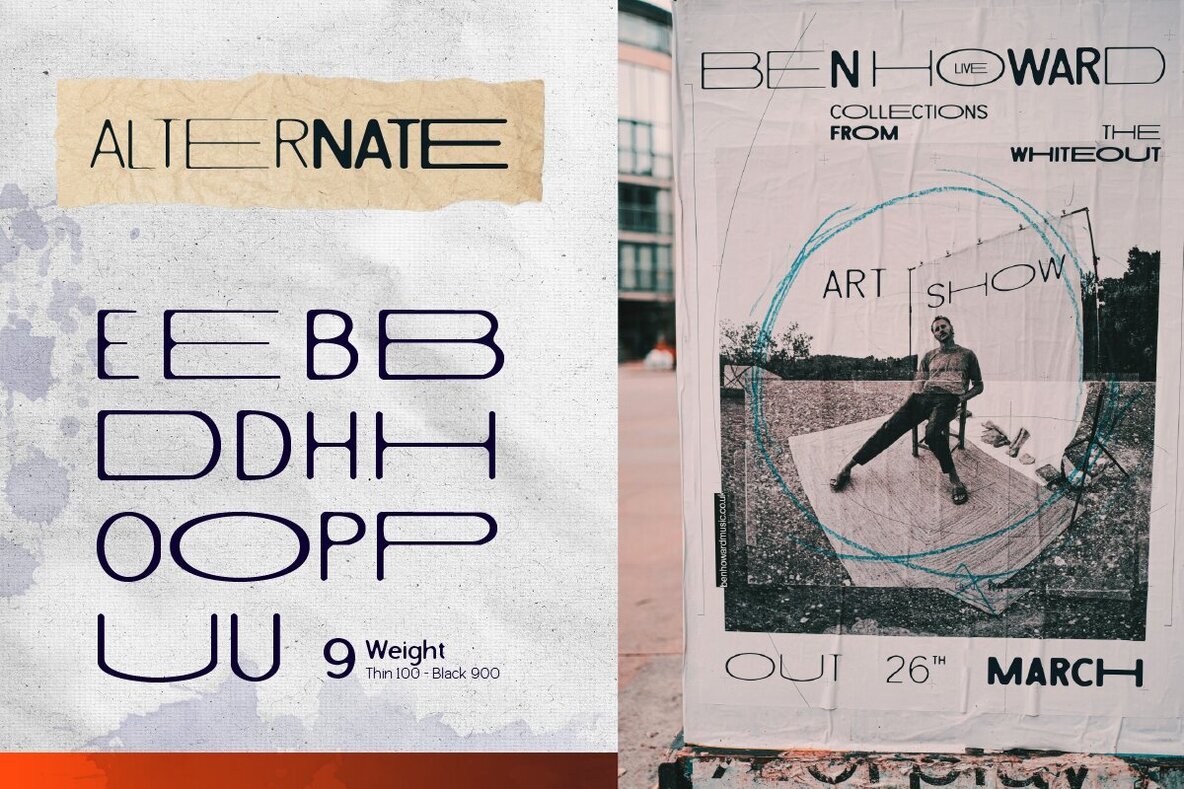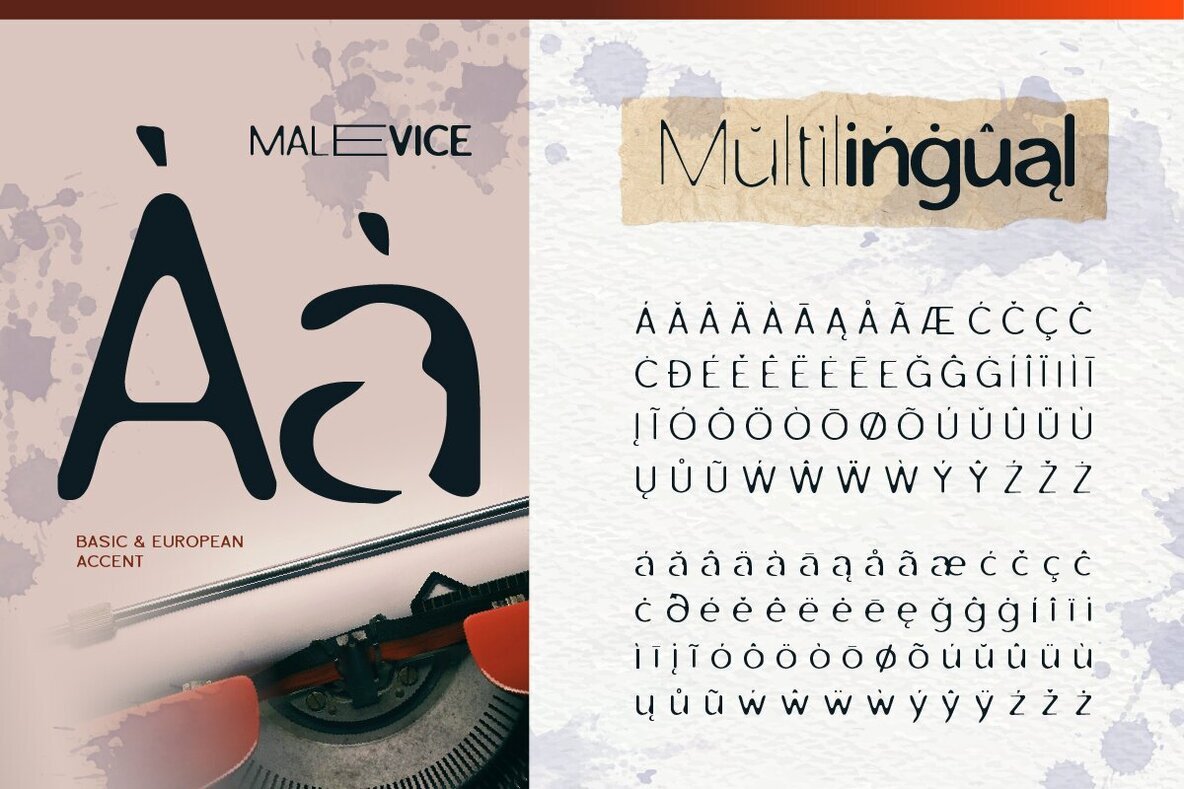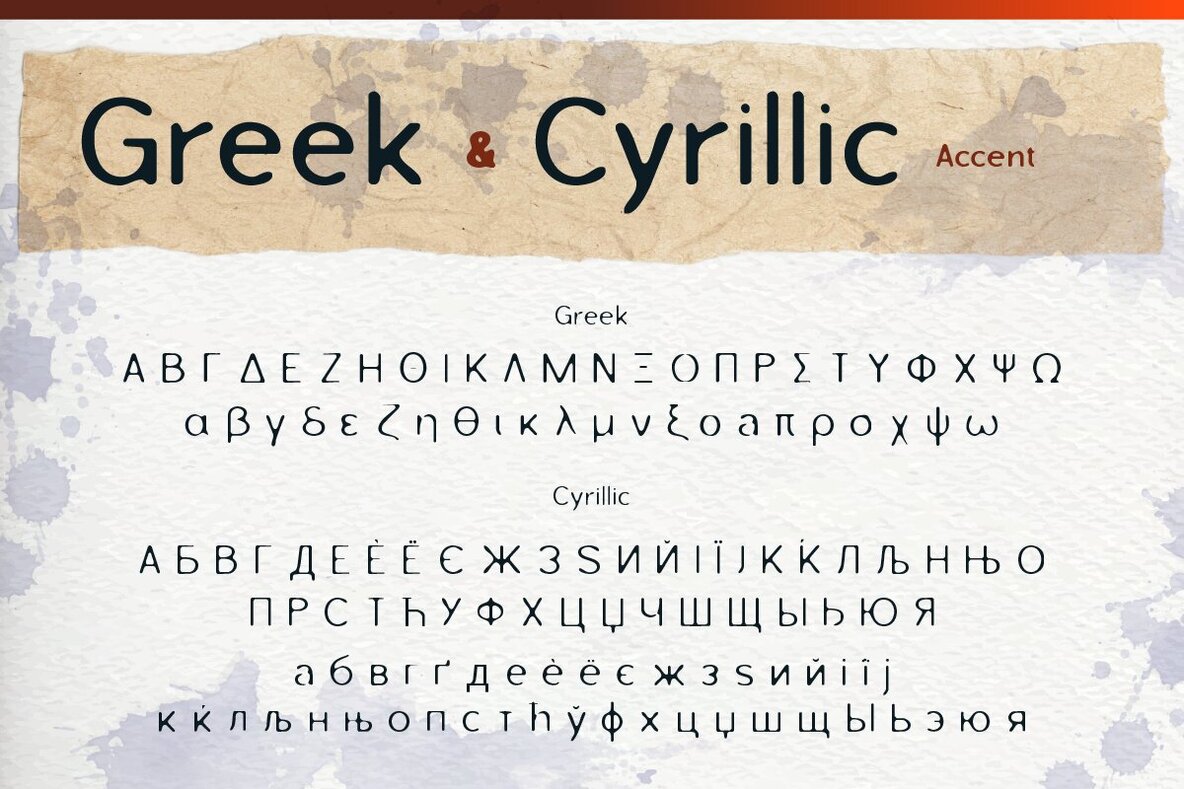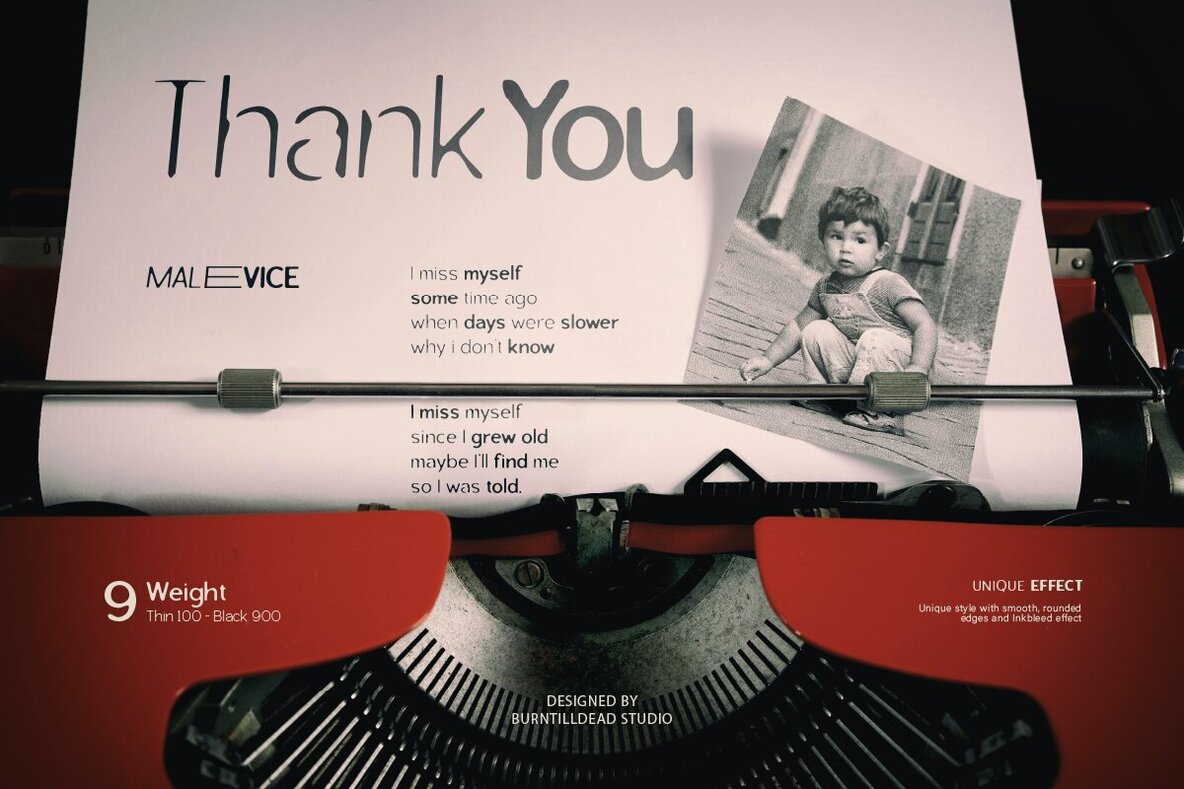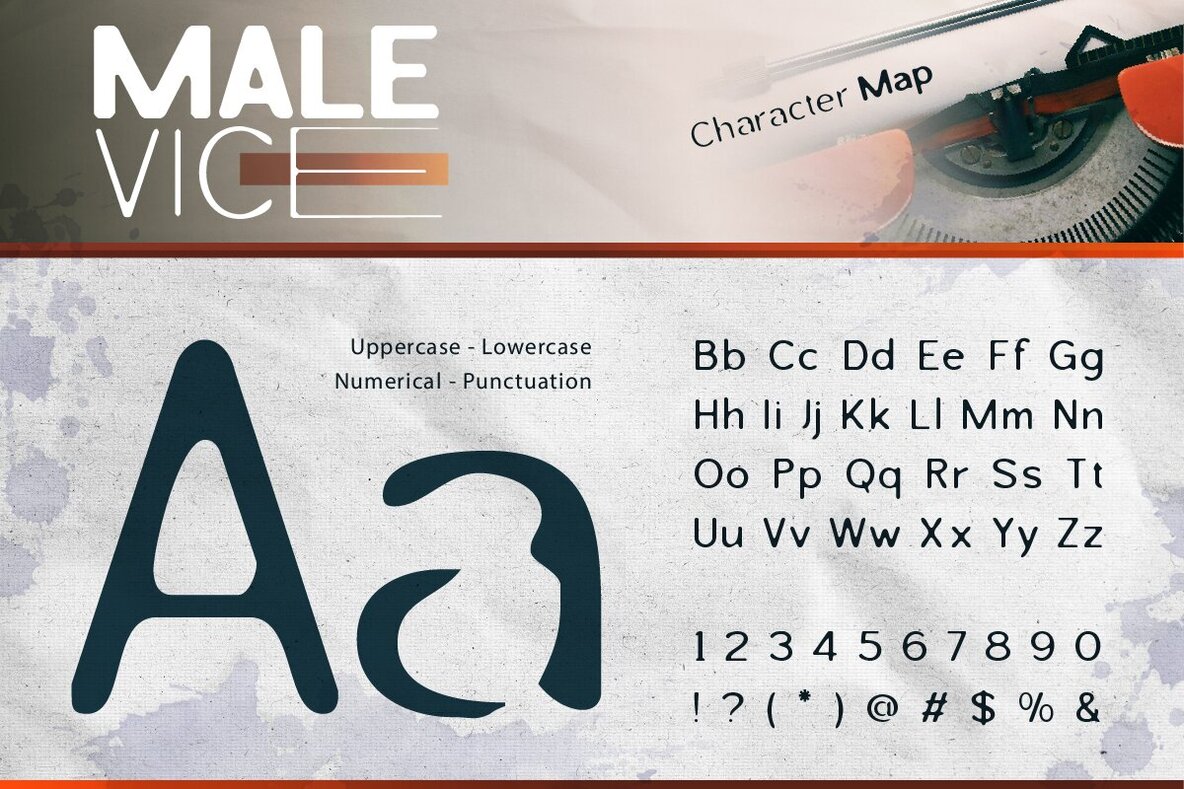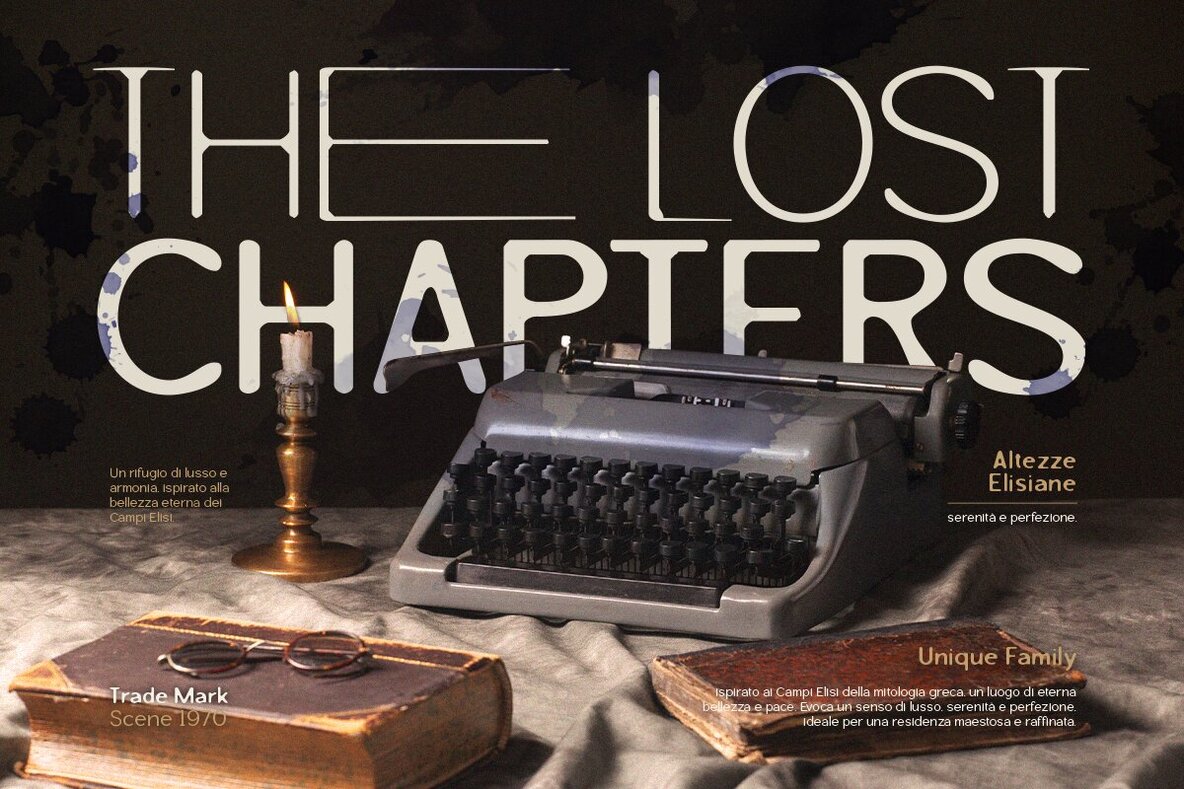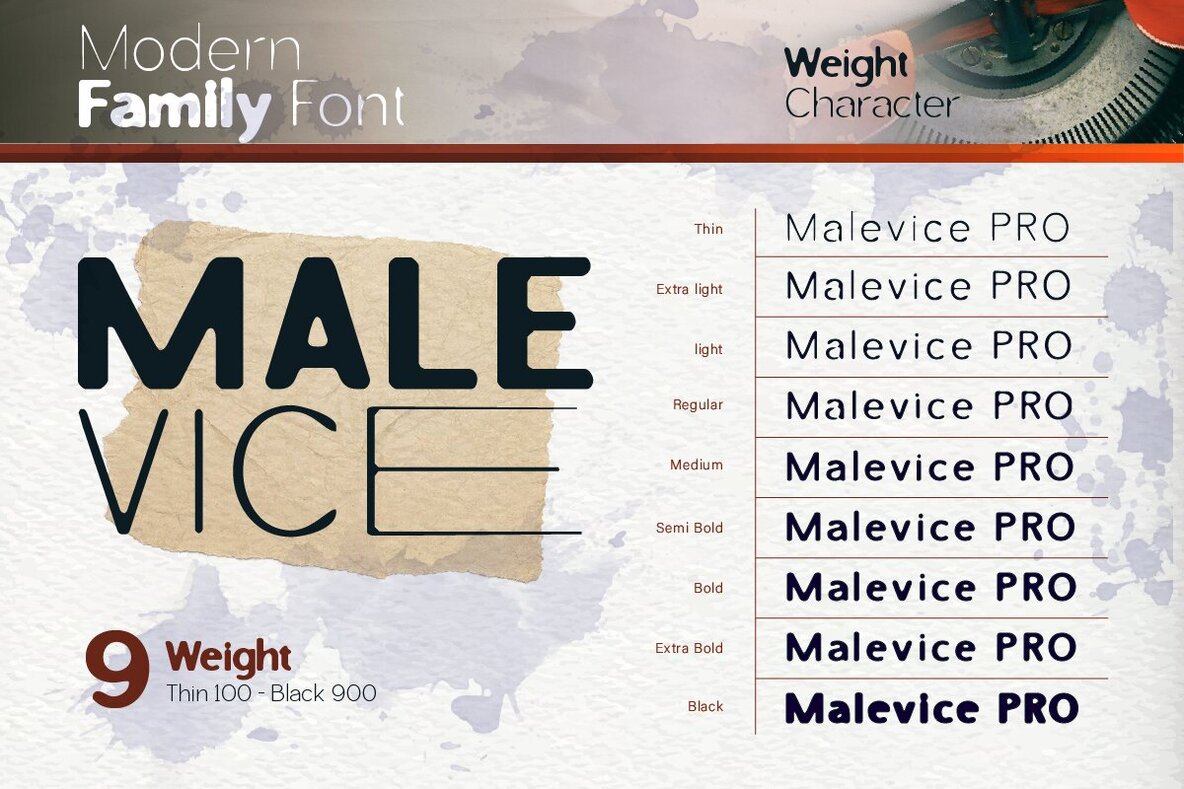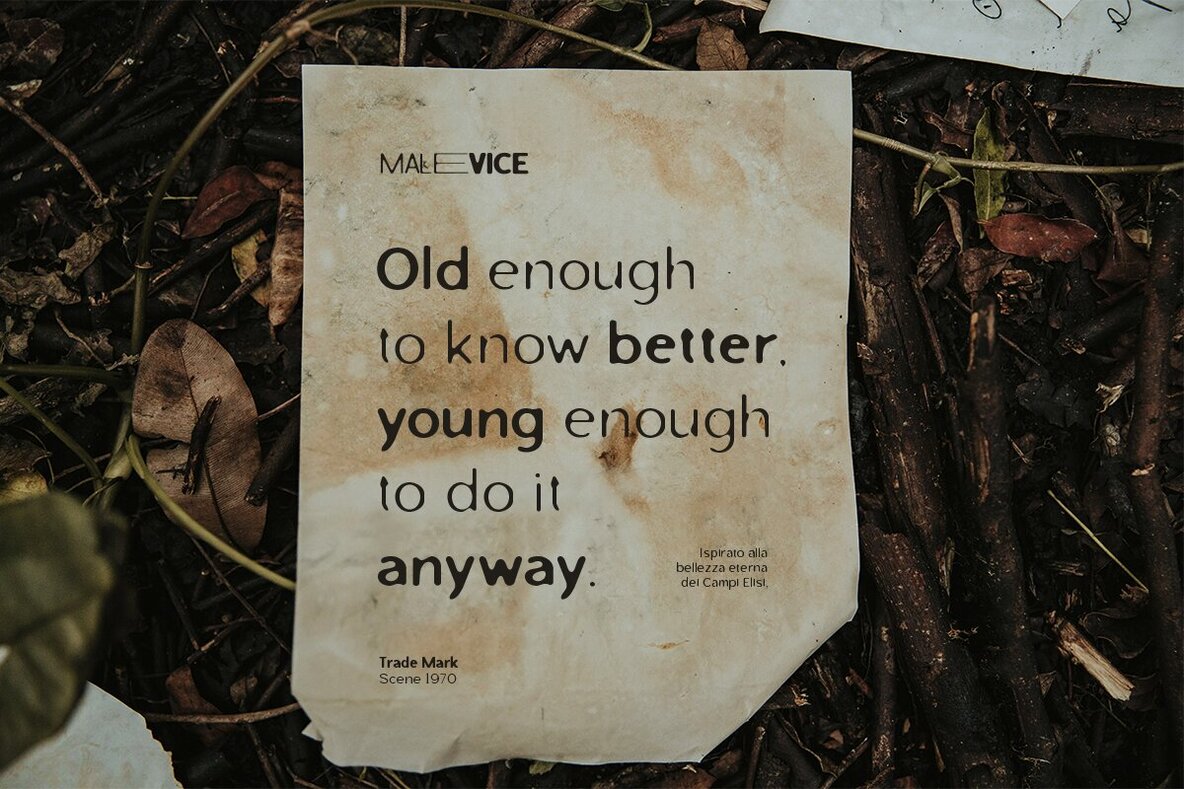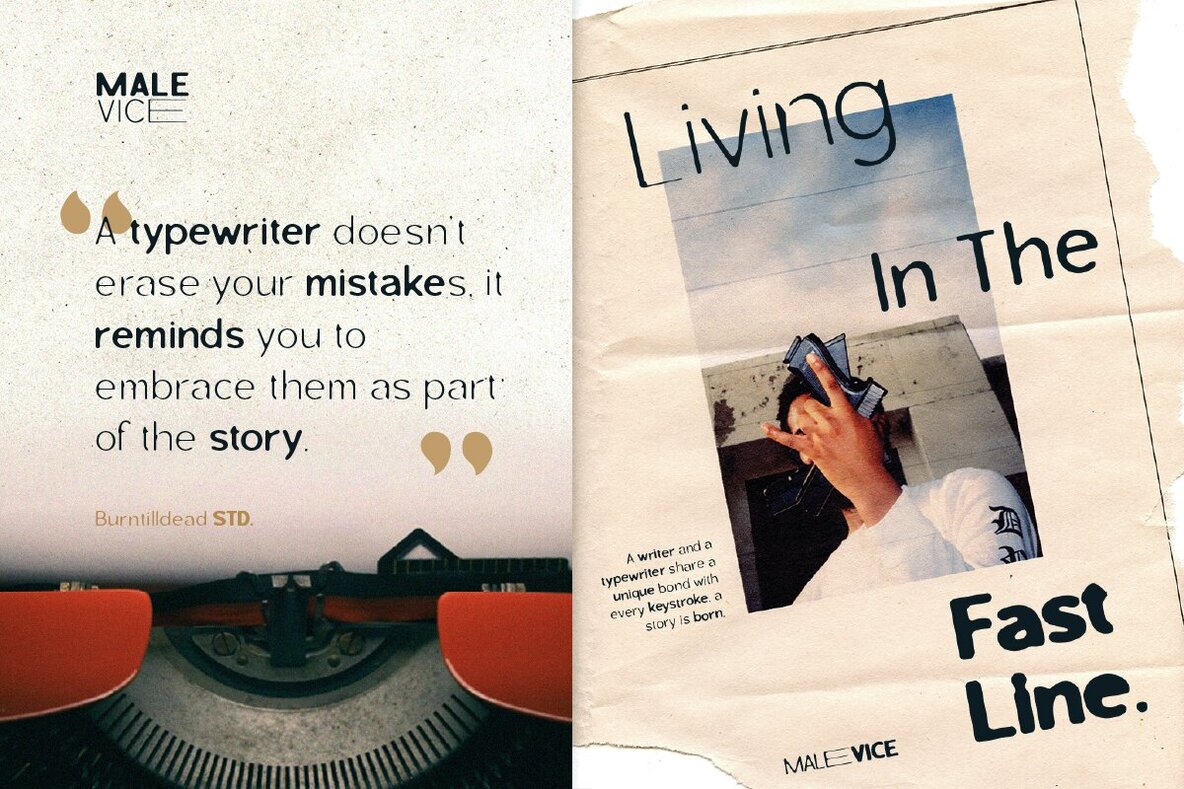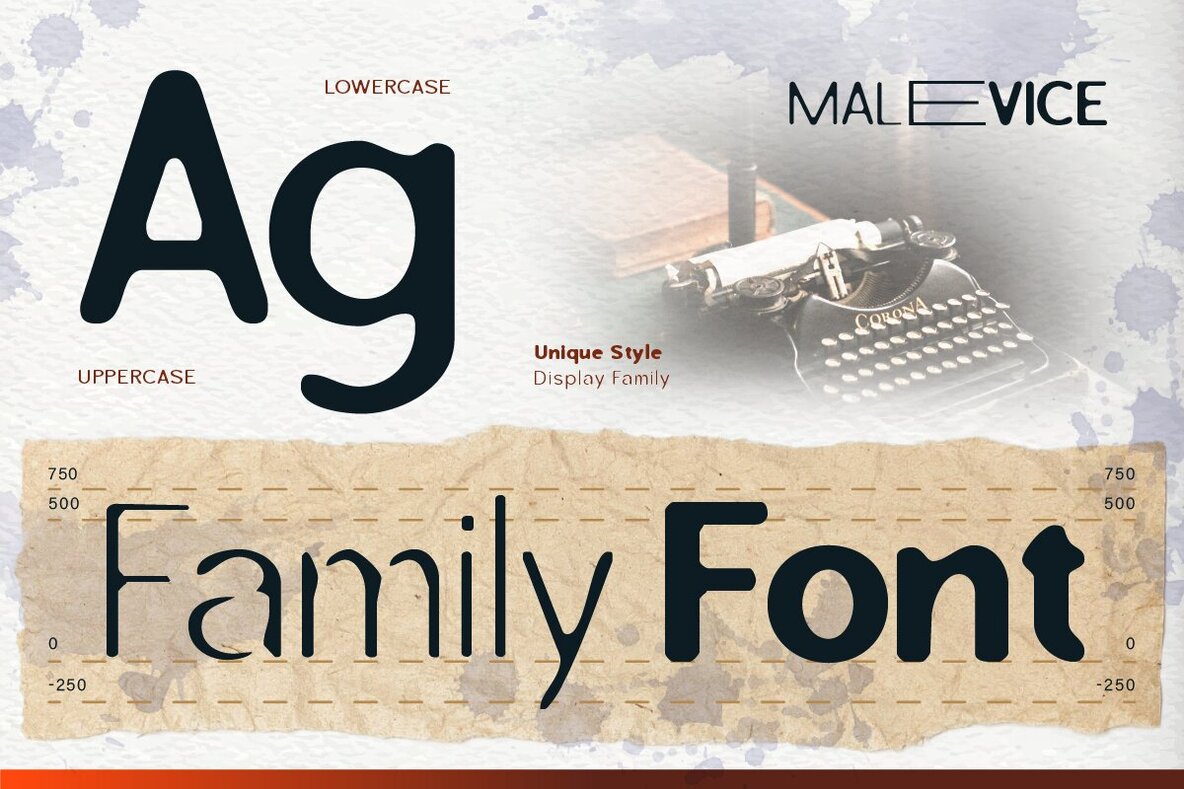
Malevice Inkbleed Font
expand_font Malevice Inkbleed Font Malevice Inkbleed: A font blending vintage charm with modern flair. Versatile, stylish, and global-ready. Ideal for bold designs. Inkbleed,Ink,Unique,Cyrillic,Retro,Bold,Distressed,Vintage,Classic,Greek,Nostalgic,Vintage,Texture,Rounded,Grunge,Coarse Explore Exceptional Fonts for Digital and Traditional Media Fontpath offers a large variety of fonts for every designer, all at affordable prices and in multiple formats. Browse our best in class fonts today for all your creative needs, you can find everything you need right here at our site! Fonts,sans,sans serif,retro,script,decorative,title,FontPath 20140312040223 Fontpath offers 200,000+ of the most professional fonts found online, start downloading today! Real-Time Font Discovery at Fontpath